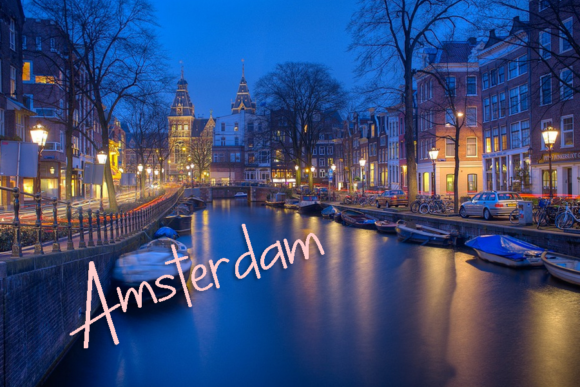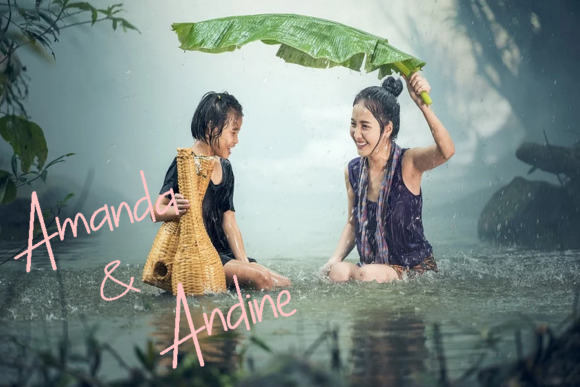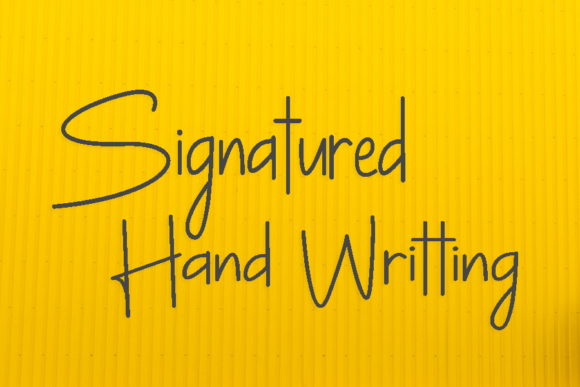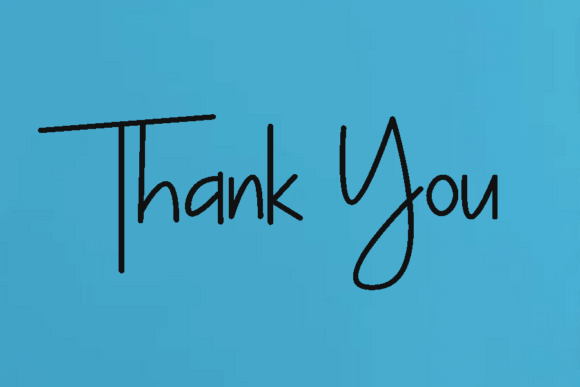
Simple Monoline Font
About Simple Monoline Font
“Simple Monoline” is a delightful handwritten font that has been crafted with meticulous care to ensure optimal results. This font is designed to cater to a variety of creative needs, allowing it to be used for a range of products with diverse requirements.
The font’s sweet handwritten style brings a sense of authenticity and personal touch to your designs. Whether you’re writing content for various products, crafting labels, designing packaging, or working on other creative projects, “Simple Monoline” is versatile enough to adapt to the unique needs of each context.
The font’s careful construction and attention to detail are reflected in its ability to suit various design applications. Its simplicity and readability make it a great choice for conveying messages effectively while maintaining a charming handwritten aesthetic. By utilizing “Simple Monoline,” you introduce a sense of sincerity and visual appeal that resonates with the audience.
In essence, “Simple Monoline” transcends being just a font—it’s a creative asset that enhances your ideas with its sweet and carefully crafted handwritten style. Its versatility and adaptability position it as a valuable tool for designers aiming to create visually appealing and effective designs tailored to specific needs.